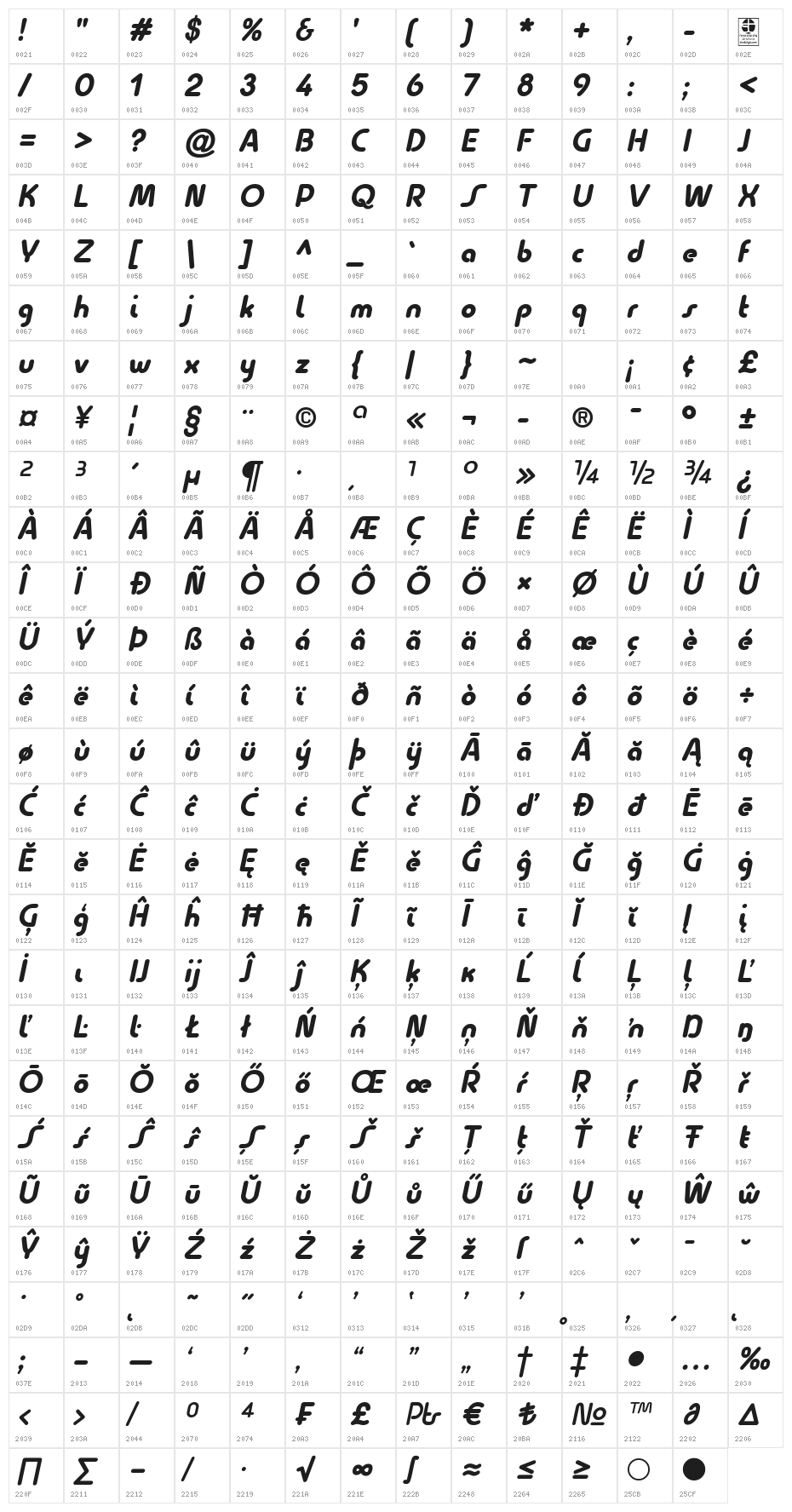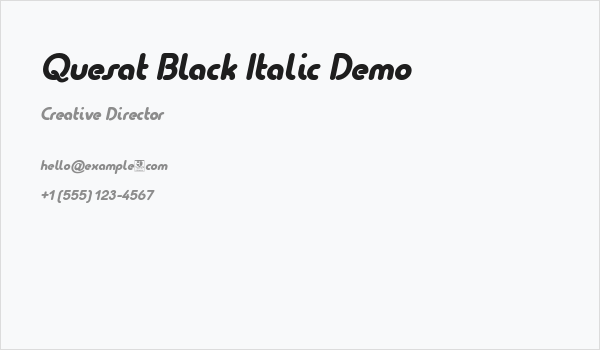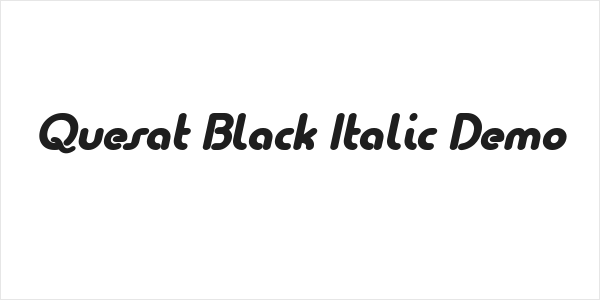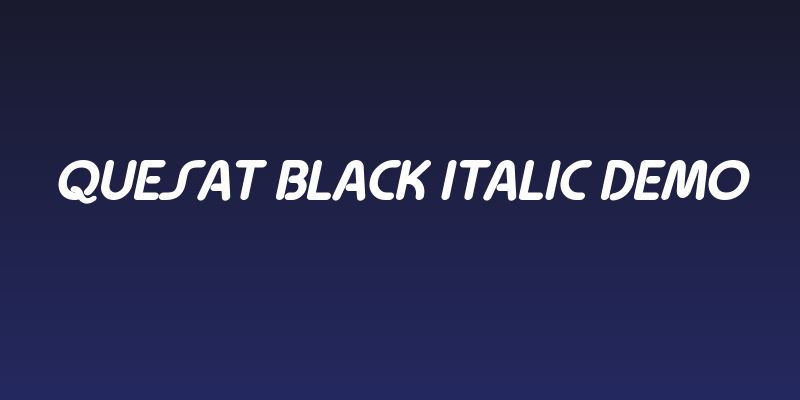
Quesat Black Italic Demo Font
Quesat Black Italic Demo Description
This font features a bold and italicized style with a smooth, rounded appearance. The characters are slightly slanted, giving a dynamic and modern feel. The strokes are thick and consistent, providing a strong visual impact. The overall design is playful yet professional, making it suitable for a variety of creative applications. The font maintains a uniform weight throughout, ensuring readability and clarity. Its rounded edges and bold presence make it stand out, while the italic slant adds a touch of elegance and movement.
| Proposed Projects | Ideal for branding, headlines, posters, and creative design projects that require a bold and modern touch. |